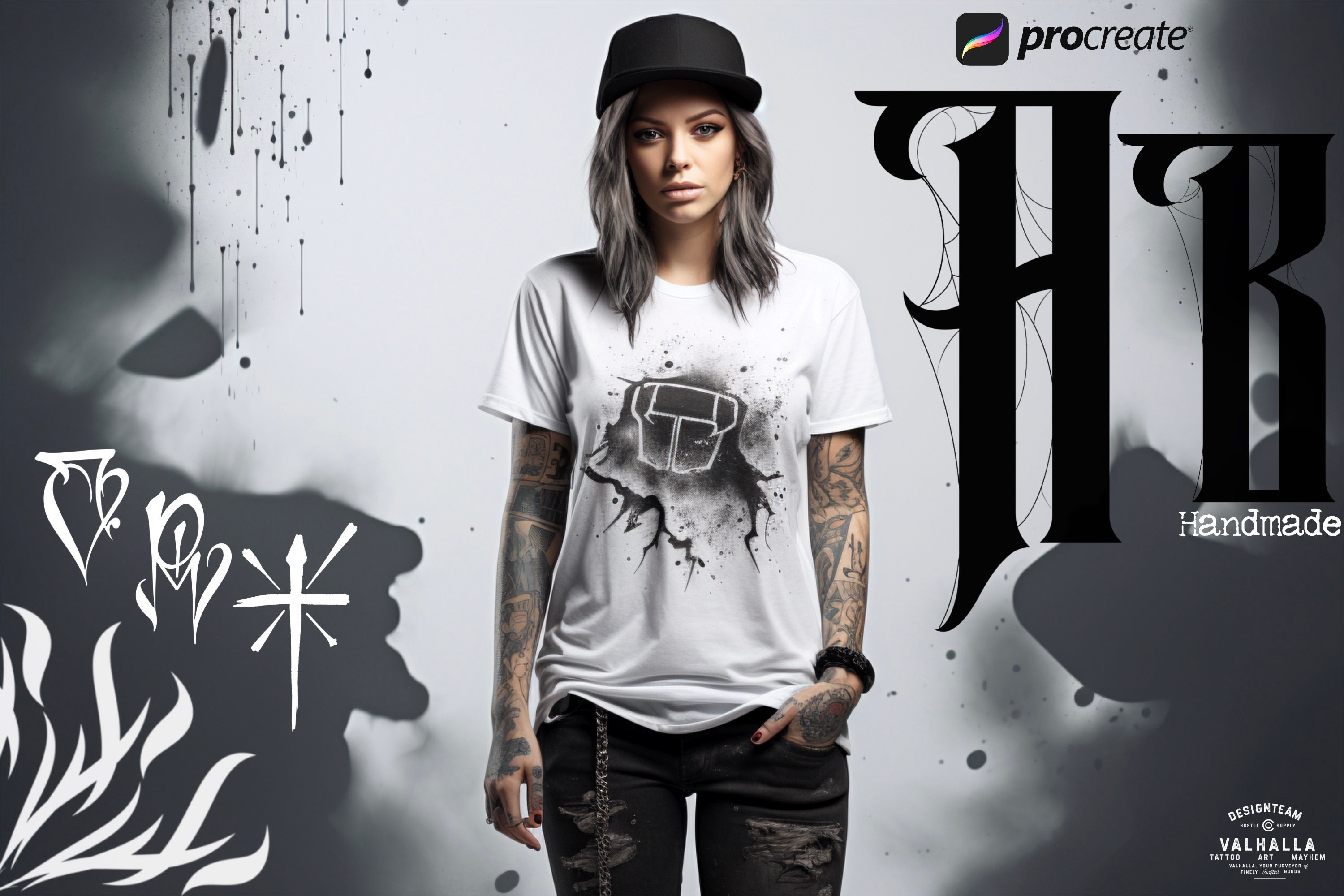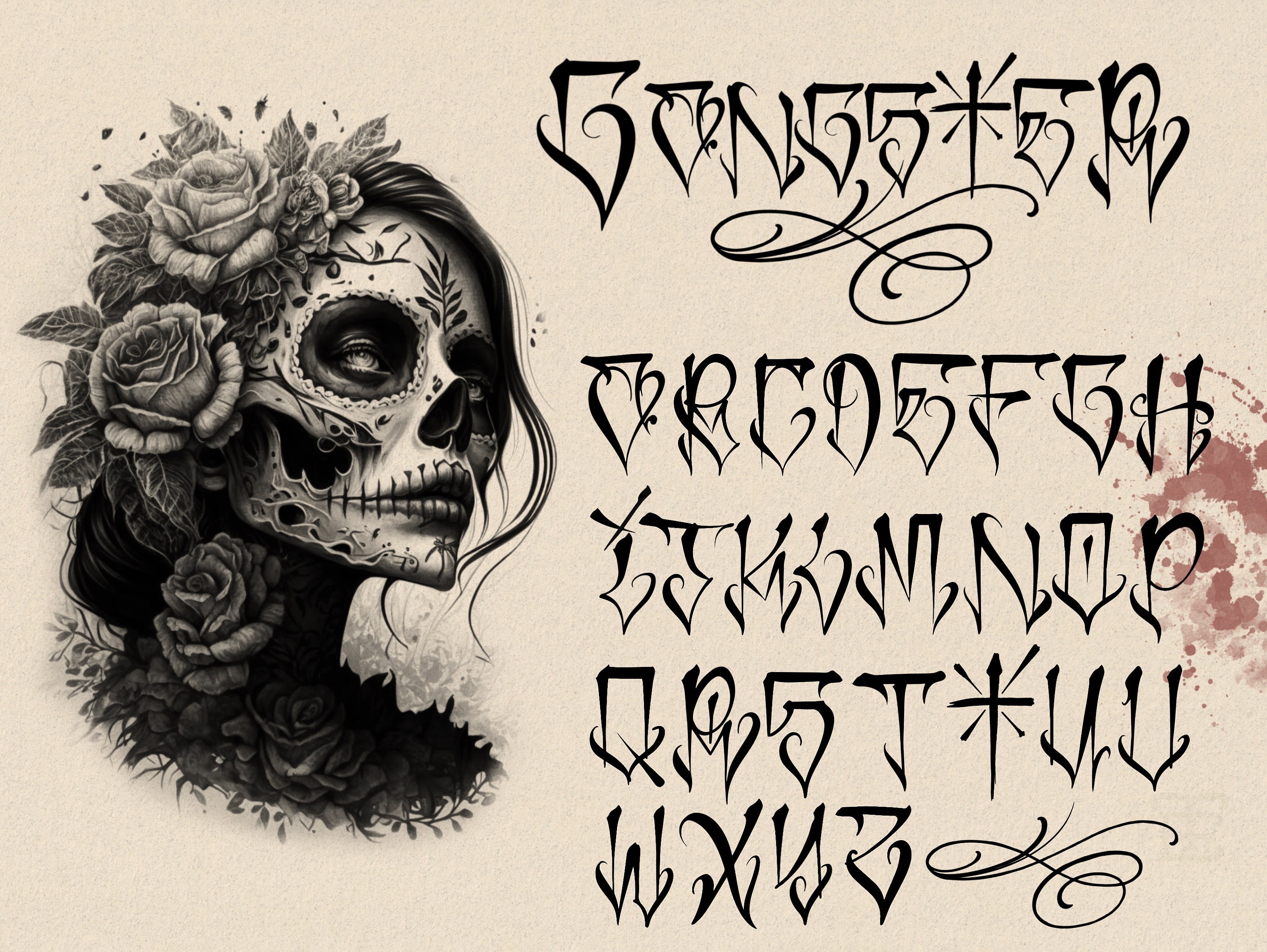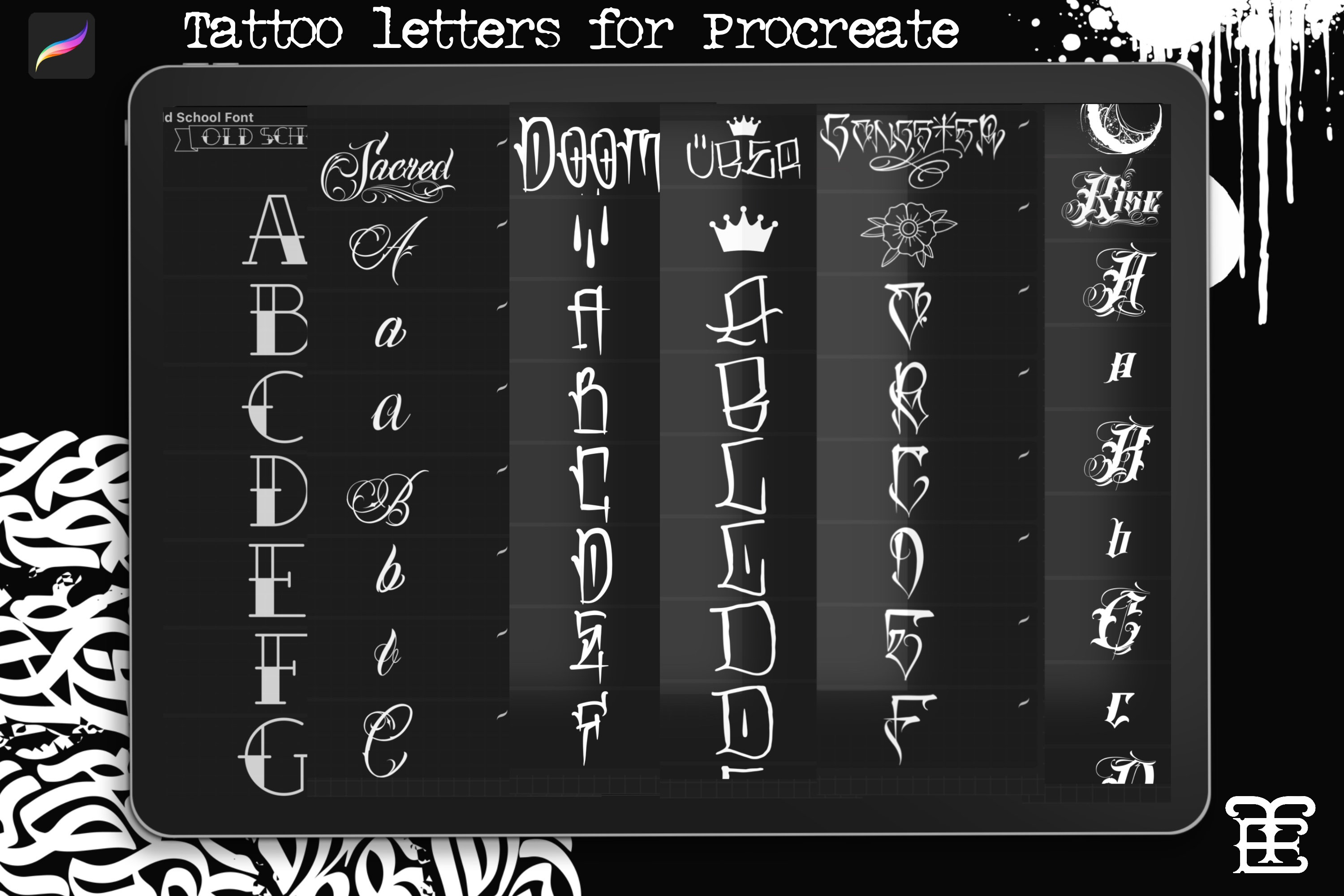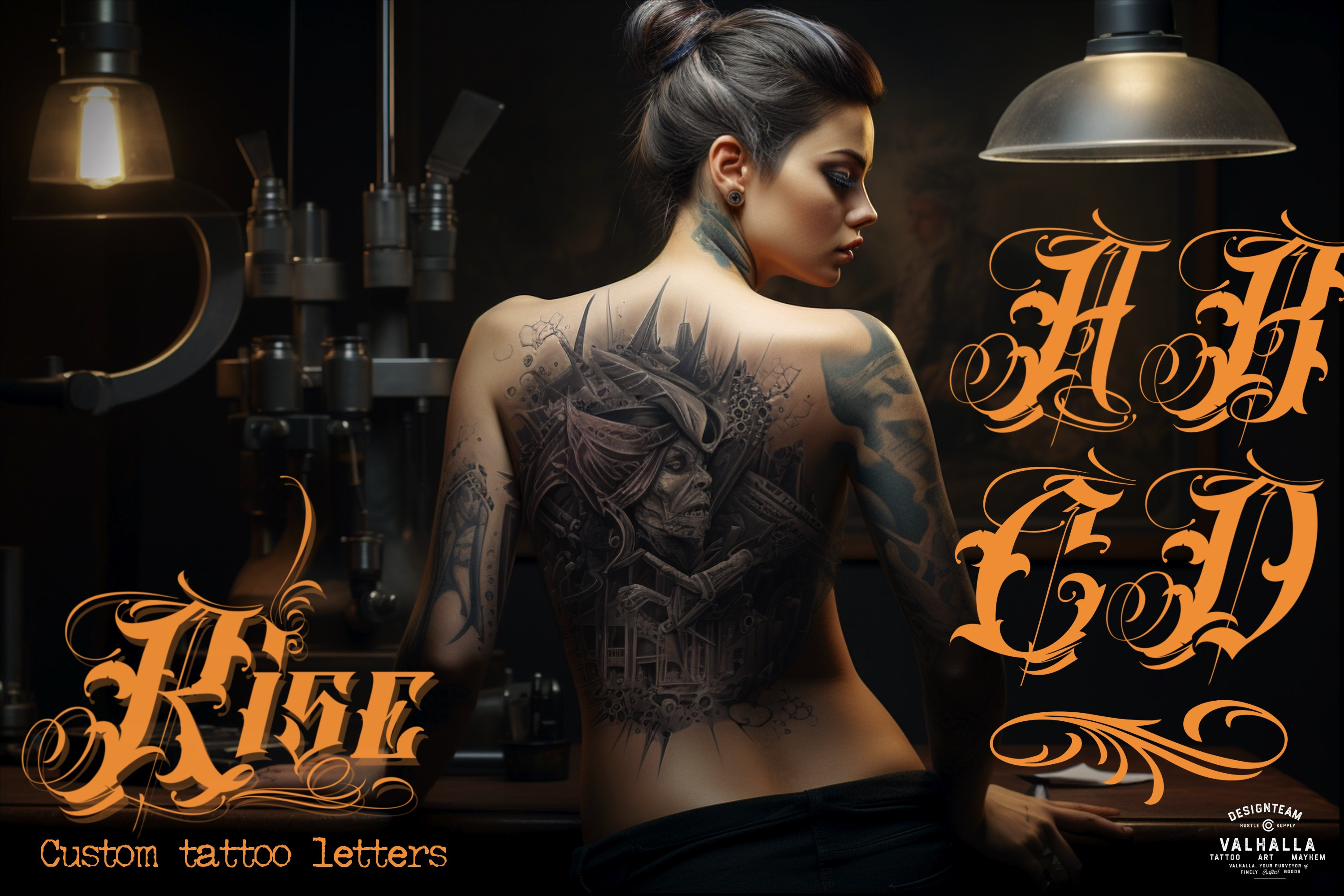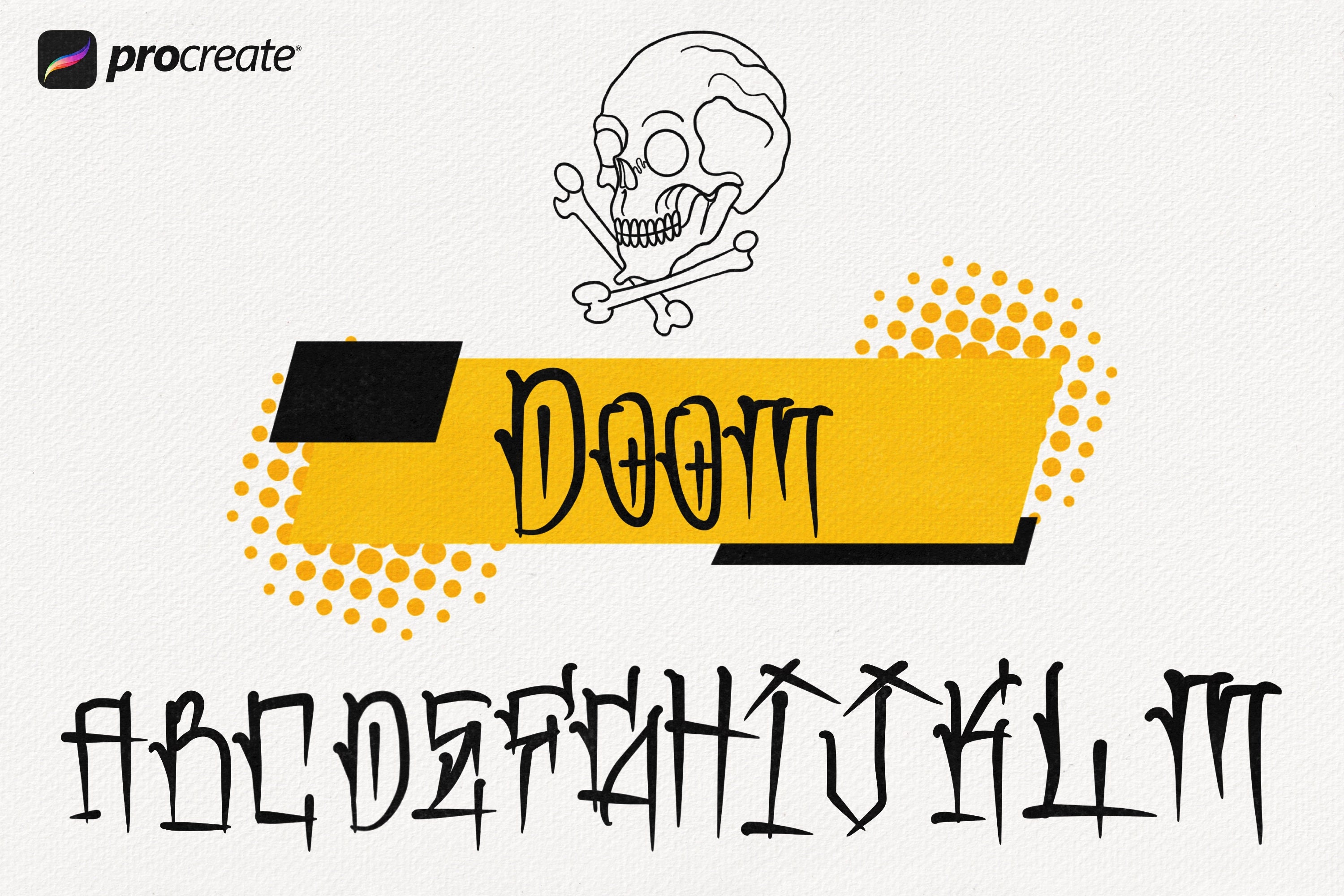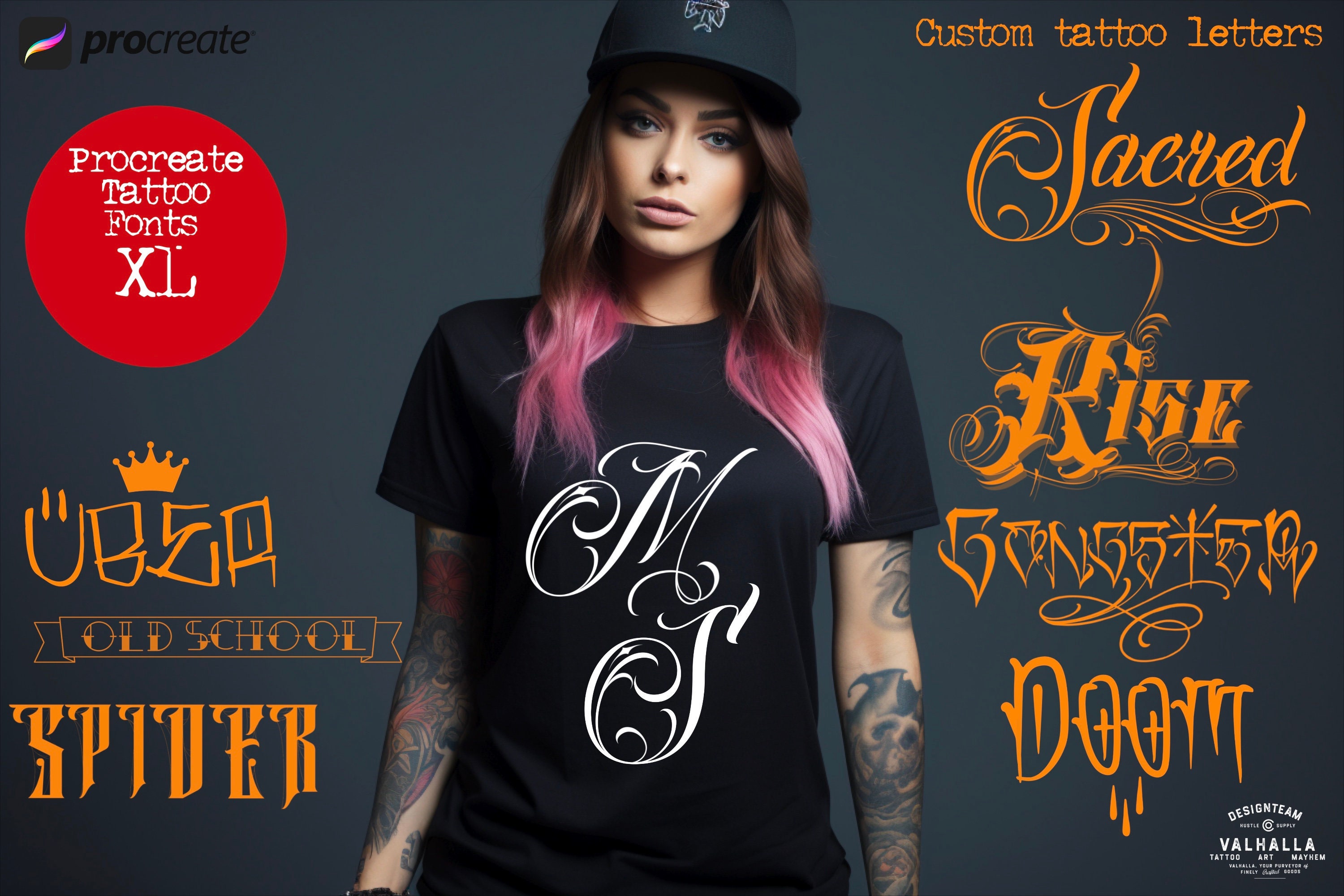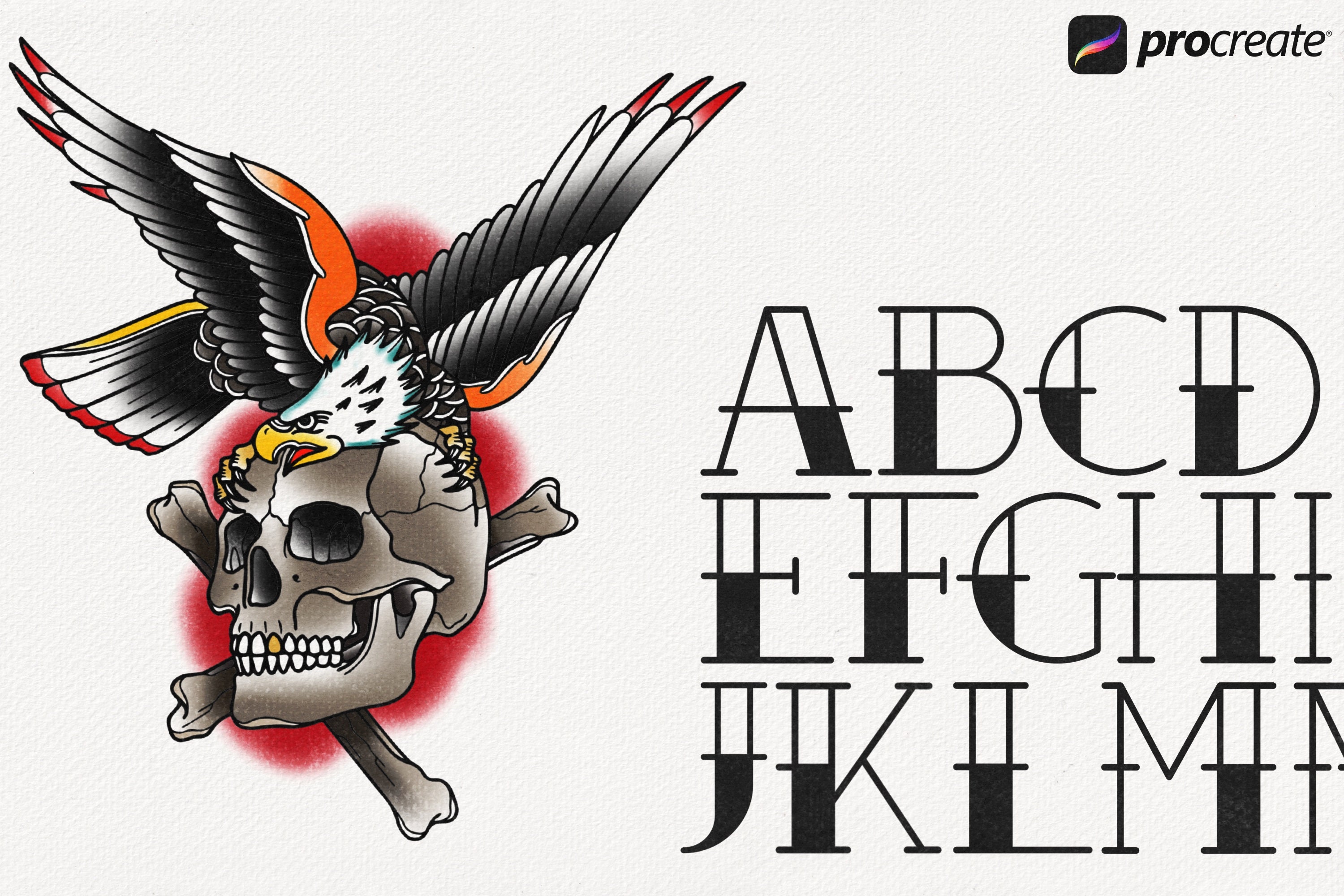
These fonts are used as brushes ( stamps ) that are used for building up your lettering art in procreate, perfect for logos, tattoos and stuff like that, standard grids are included
Custom made fonts
Rise
Gangster
Uber
Sacred
Doom
Spider
Old school